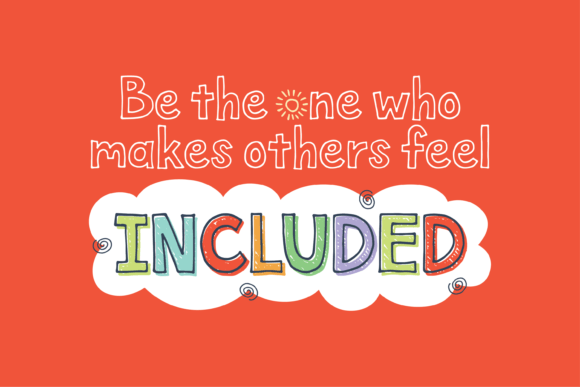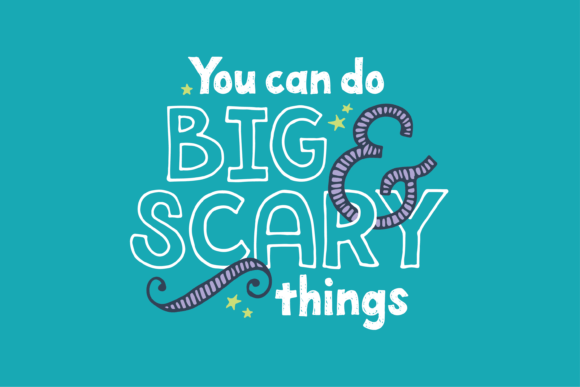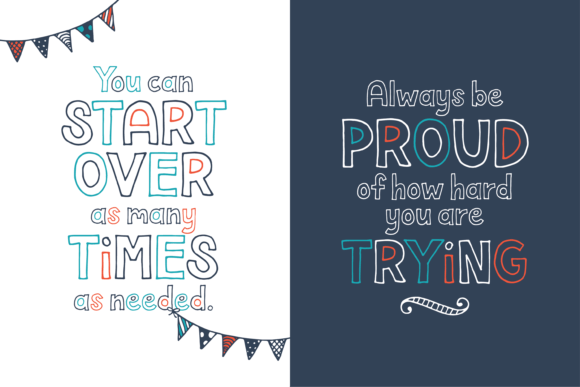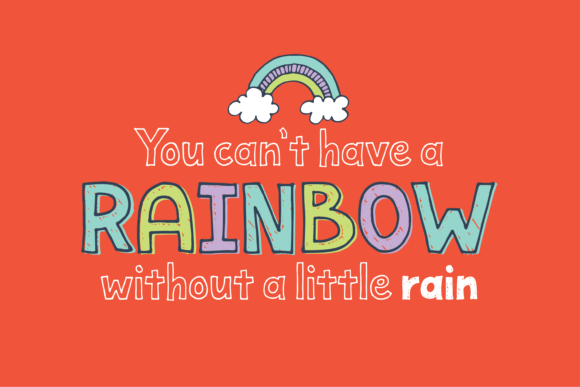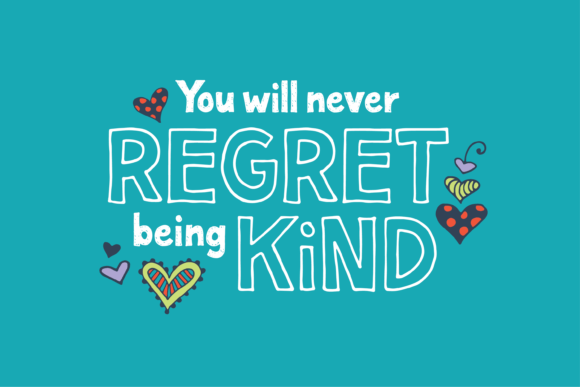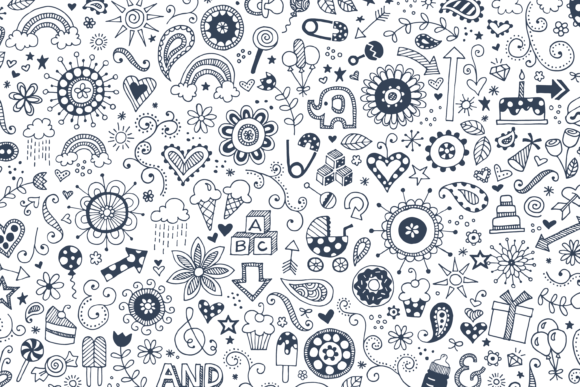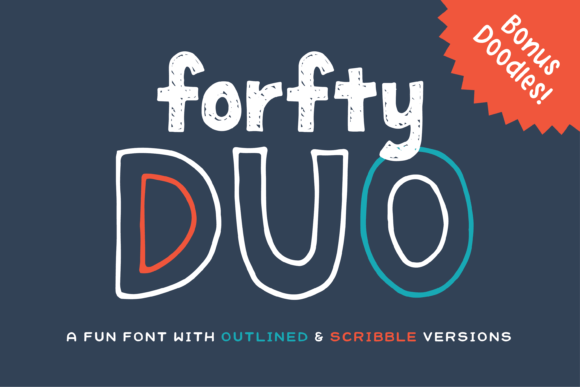
Introducing Forfty Duo Font: A Charming Hand-Drawn Font for Designers and Crafters
Are you tired of using the same old fonts in your designs? Look no further! Forfty Duo Font is a delightful, hand-drawn font that is sure to add a touch of whimsy and charm to your projects. This versatile font comes in two variations: outline and scribble, making it perfect for a wide range of design applications.
A Sweet and Simple Style
Forfty Duo Font features childlike letterforms that create a sweet and simple style that is sure to capture the hearts of designers and crafters alike. The font’s playful and innocent look makes it ideal for projects that require a touch of nostalgia or a youthful feel. Whether you’re designing a logo, creating a craft tutorial, or making a social media graphic, Forfty Duo Font is the perfect choice.
Two Variations to Suit Your Needs
One of the best things about Forfty Duo Font is that it comes in two variations: outline and scribble. The outline version of the font features a clean and delicate design, while the scribble version has a more playful and hand-drawn look. This allows you to choose the style that best suits your project and personal preference.
Bonus Doodle Pack
But that’s not all! Forfty Duo Font also comes with a bonus doodle pack that pairs perfectly with the font. The doodle pack features a range of fun and playful illustrations that can be used to add an extra touch of personality to your designs. From stars and hearts to flowers and animals, the doodle pack has everything you need to create unique and eye-catching designs.
Color SVG-OTF Version
For designers who want to take their designs to the next level, Forfty Duo Font also comes in a color SVG-OTF version. This version of the font features a range of colors that can be used to add an extra pop of personality to your designs. Whether you’re creating a digital project or a print design, the color SVG-OTF version of Forfty Duo Font is sure to impress.
Forfty Duo Font is perfect for designers and crafters who want to add a touch of whimsy and charm to their projects. Whether you’re creating digital designs or handmade crafts, this font is sure to inspire your creativity. Here are just a few ways you can use Forfty Duo Font:
- Designing logos and branding materials for kids’ products or services
- Creating craft tutorials and patterns for handmade crafts
- Making social media graphics and posts for kids’ events or activities
- Designing invitations and party decorations for kids’ birthday parties
- Creating digital papers and journals for kids
Why Choose Forfty Duo Font?
So why choose Forfty Duo Font over other fonts? Here are just a few reasons:
- Unique and playful design that is sure to stand out
- Versatile font that can be used for a wide range of design applications
- Comes in two variations: outline and scribble
- Bonus doodle pack that pairs perfectly with the font
- Color SVG-OTF version available for added versatility
In conclusion, Forfty Duo Font is a charming hand-drawn font that is sure to delight designers and crafters alike. With its sweet and simple style, versatile design, and bonus doodle pack, this font is perfect for a wide range of design applications. Whether you’re creating digital designs or handmade crafts, Forfty Duo Font is sure to inspire your creativity and add a touch of whimsy and charm to your projects.